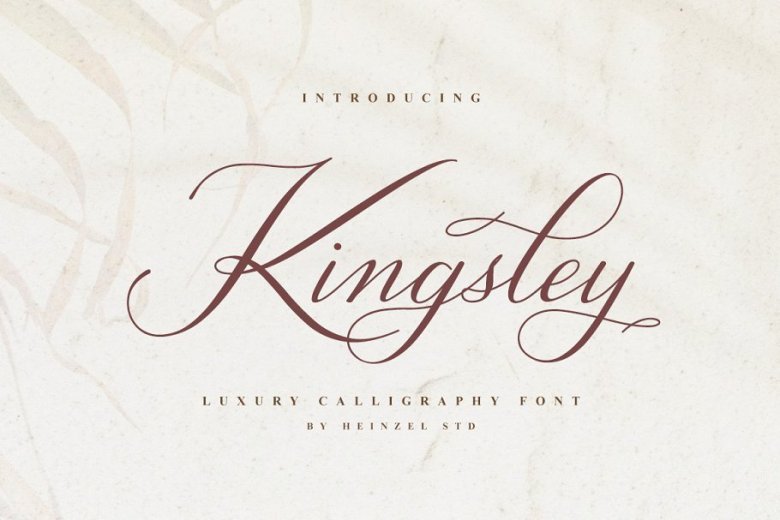
Kingsley Luxury Calligraphy Font
Kingsley Font has a romantic and modern calligraphy, ready to give your design a fresh and fabulous Style. Kingsley comes as a single font file packed full of great features.
Perfect for weddings, branding and romantic invitations and also suitable for various purposes such as digital lettering, headings, logos, wedding invitations, t-shirts, letterheads, signage’s and much more!